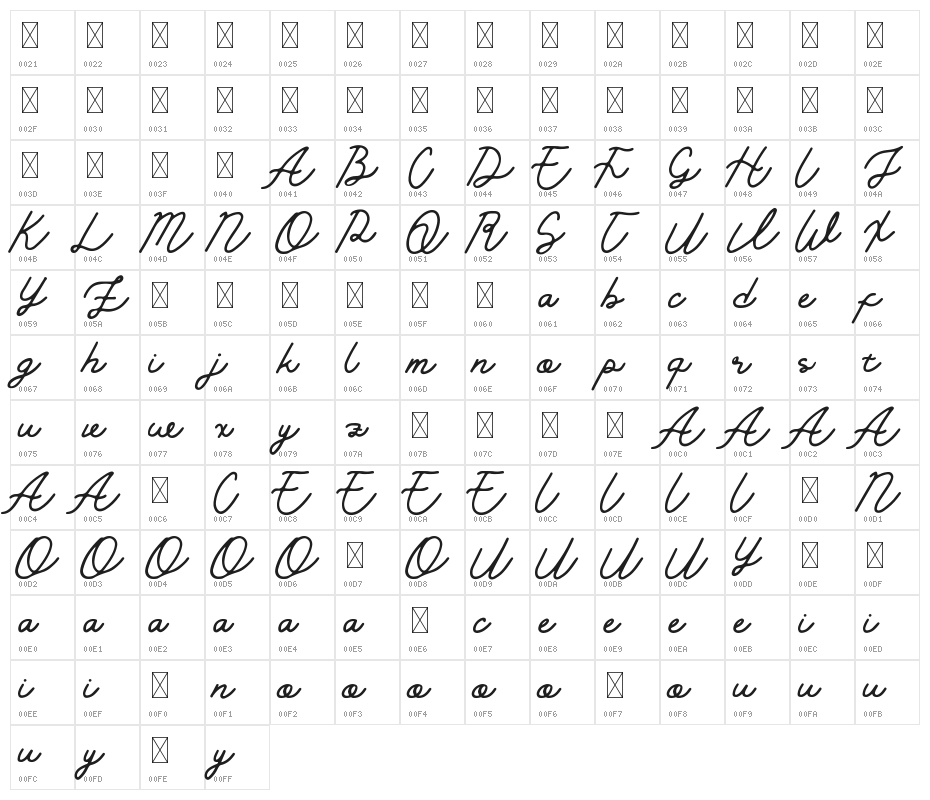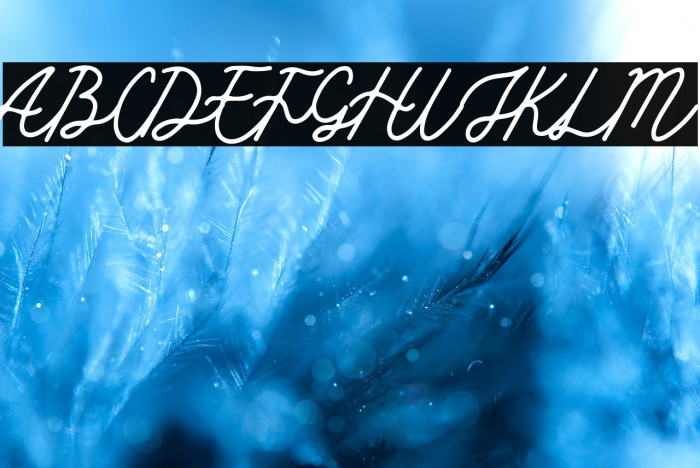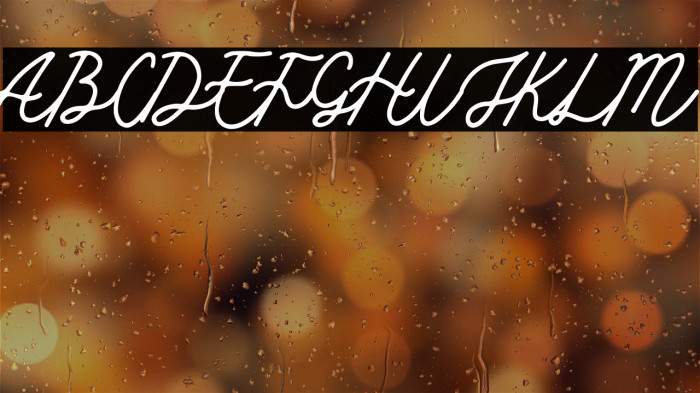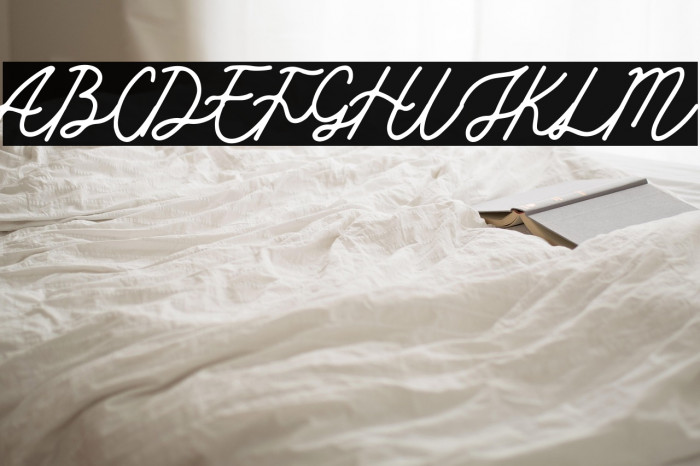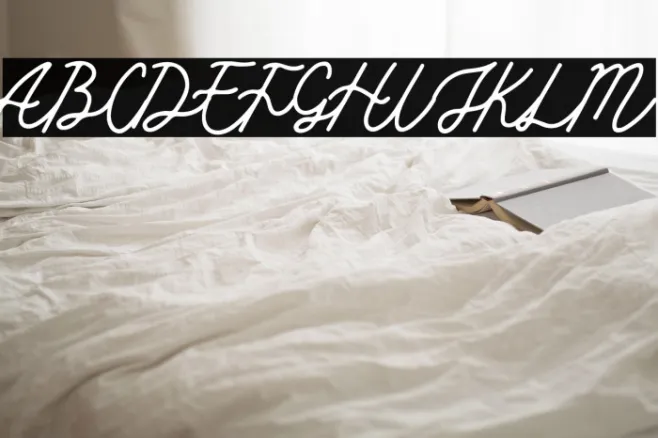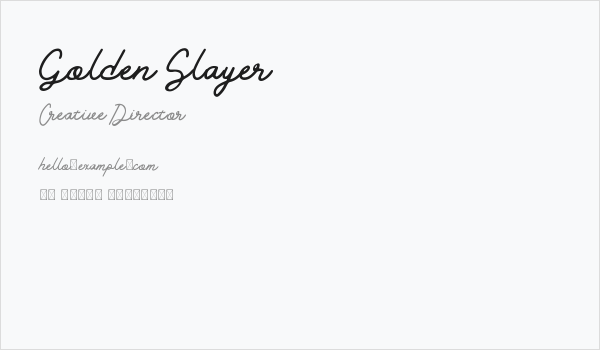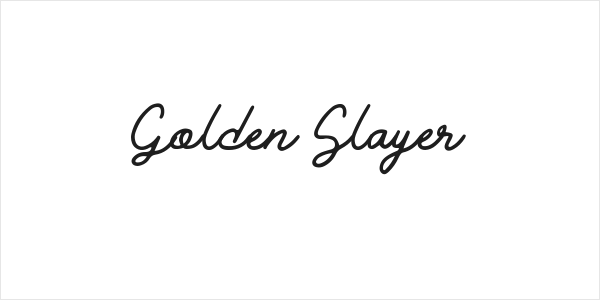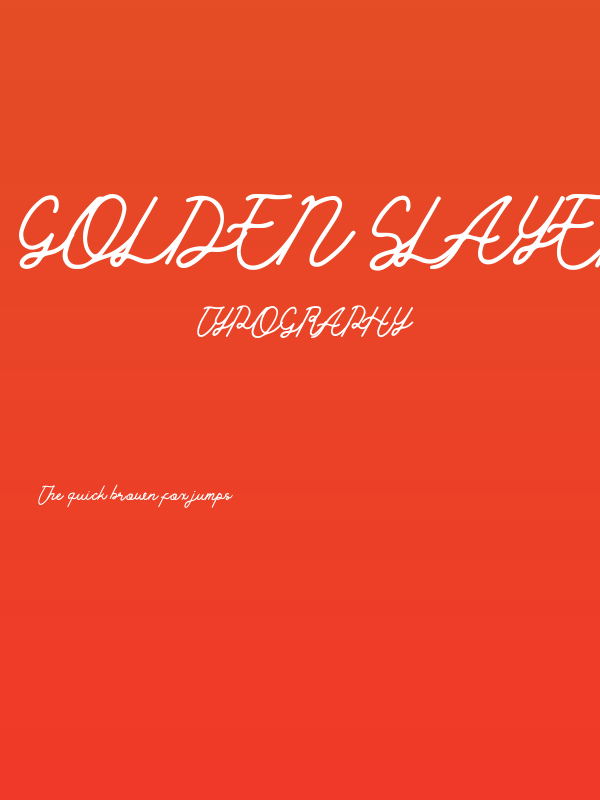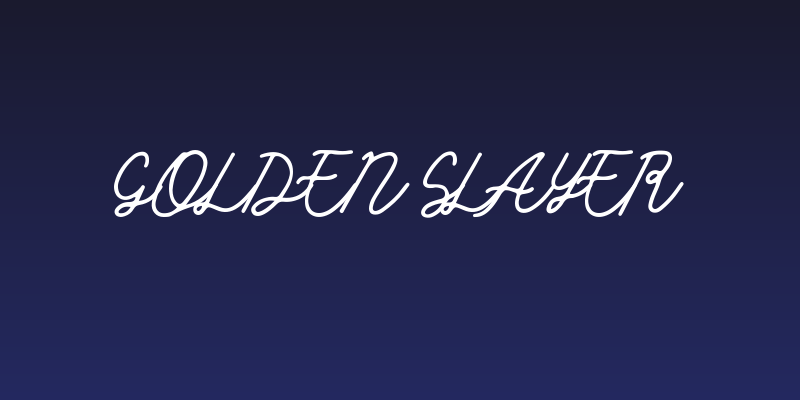
Golden Slayer Font
Golden Slayer Description
This font features a flowing, cursive style that emulates elegant handwriting. The uppercase letters are gracefully connected, with smooth curves and loops that give a sense of fluidity and motion. The lowercase characters maintain a consistent slant, enhancing the script-like appearance. Each letter is distinct yet harmoniously blends with the others, creating a cohesive look. The font's overall aesthetic is sophisticated and artistic, making it suitable for projects that require a personal touch. The absence of serifs and the continuous stroke design contribute to its modern and stylish feel.
| Overall Style | Elegant, Modern |
| Use Case | Logos, Invitations, Personal branding |
| Proposed Projects | Ideal for wedding invitations, greeting cards, personal branding, and elegant logos. |